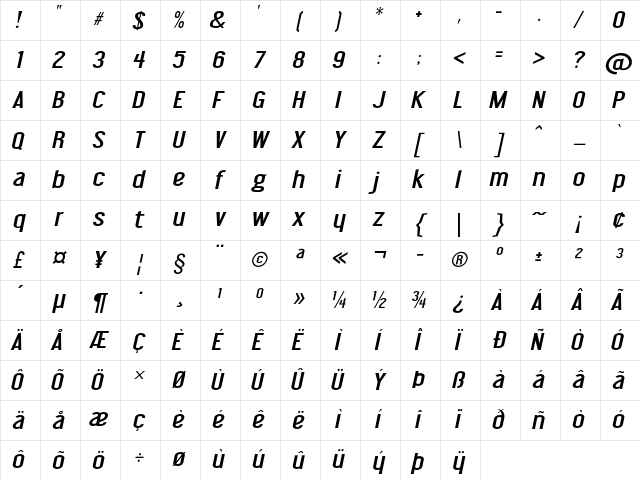
Impasto Regular
Impasto Family
Design Context for Impasto
Impasto is a composed and adaptable typeface that performs quietly and consistently across a wide range of design contexts.